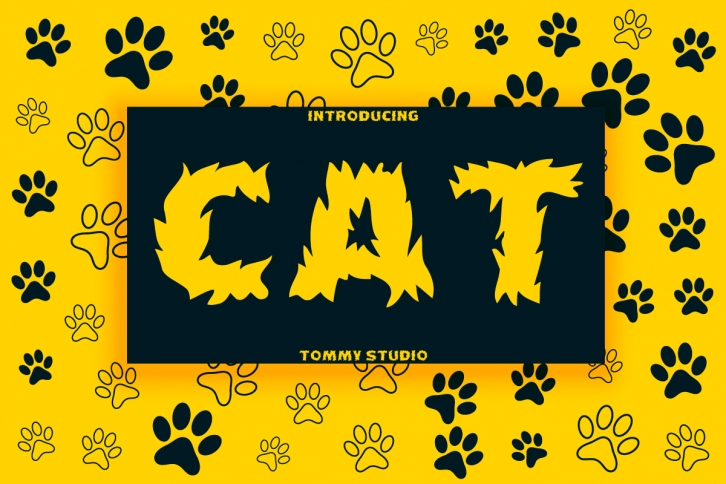
Cat is a cool, thick lettered and uniquely designed decorative font. It works incredibly well on a wide range of creations related to pet designs and more.